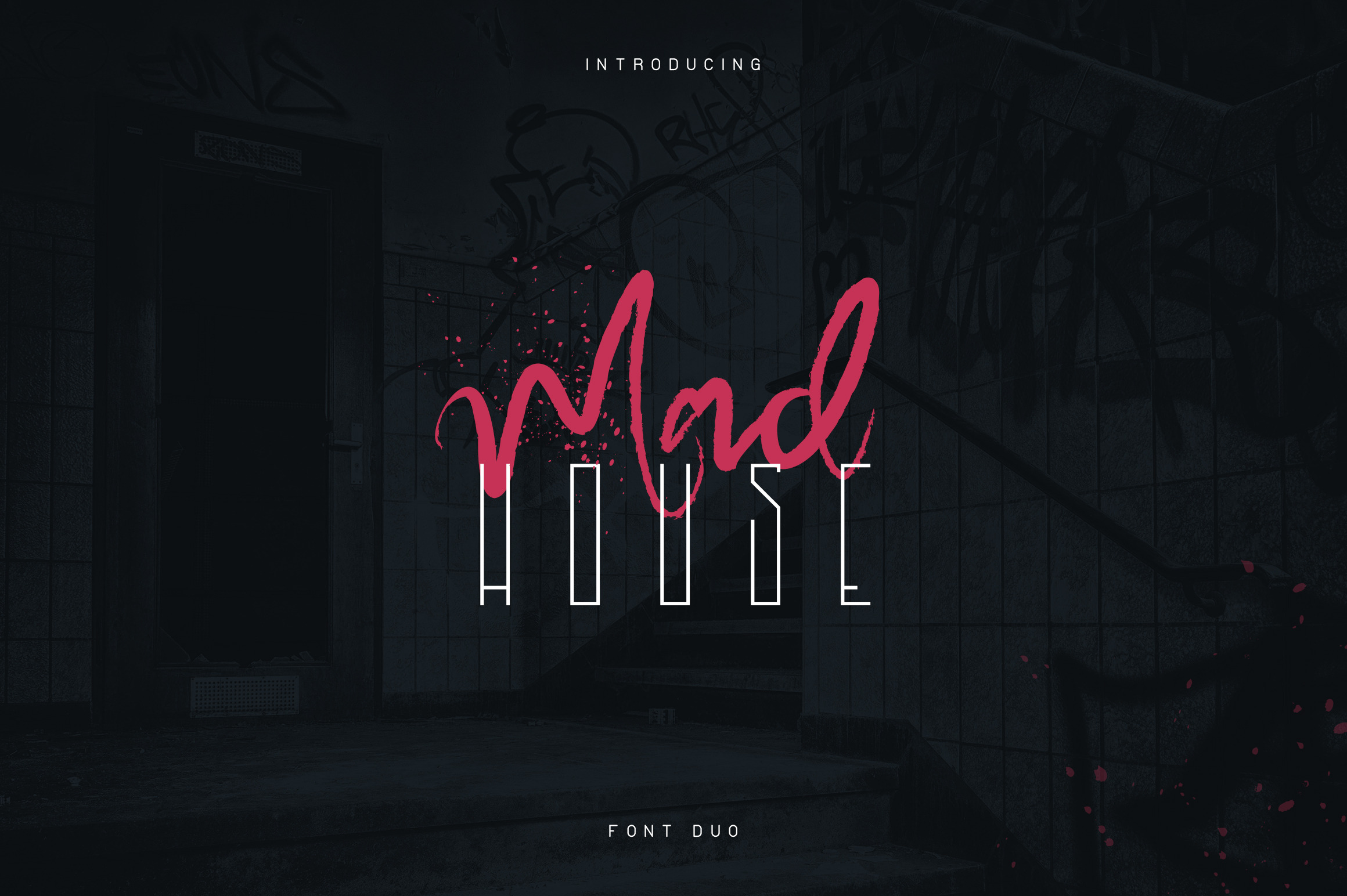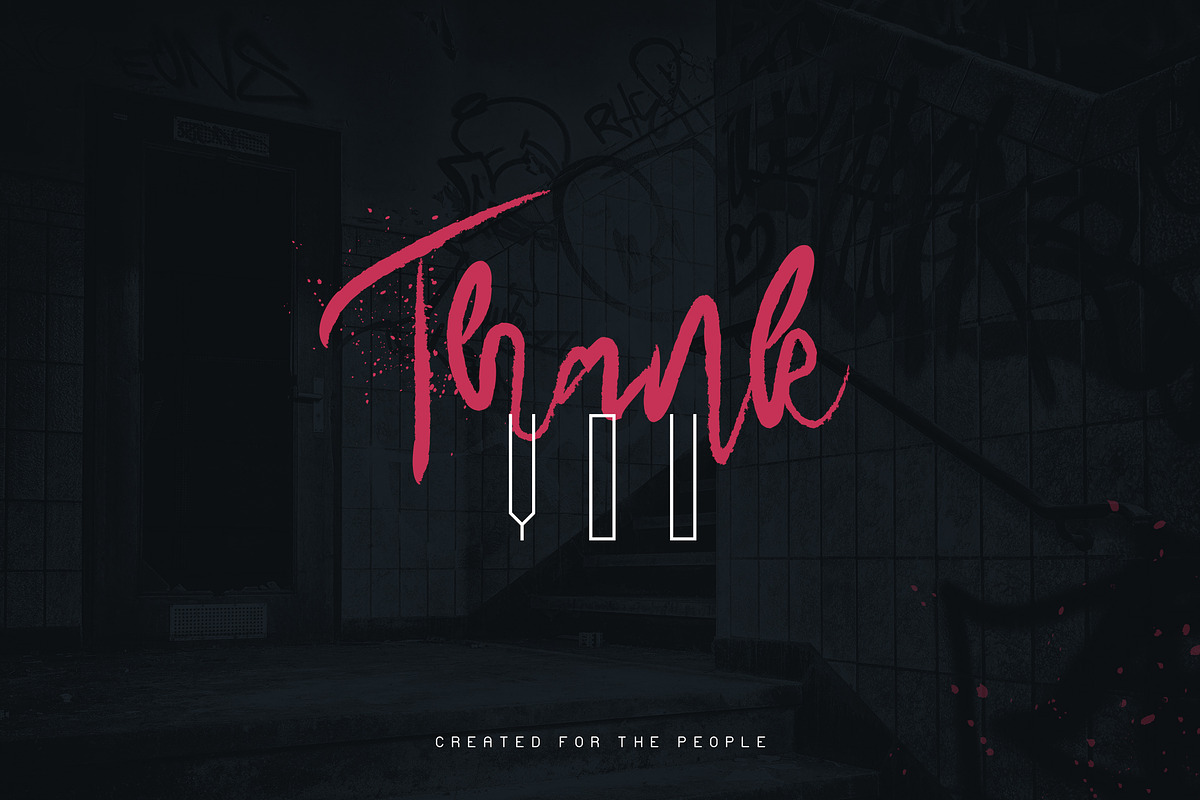
Madhouse is clean, long sans serif typeface with 5 weights and script font, elements and multilingual support. It's a very versatile font that works great in large and small sizes.
Horizon is perfect for branding projects, home-ware designs, product packaging, magazine headers - or simply as a stylish text overlay to any background image.
- Uppercase,lowercase,numeral,punctuation & Symbol
- Sans - Light, Regular, Bold, Extrabold, Black
- Script
- Vector elements